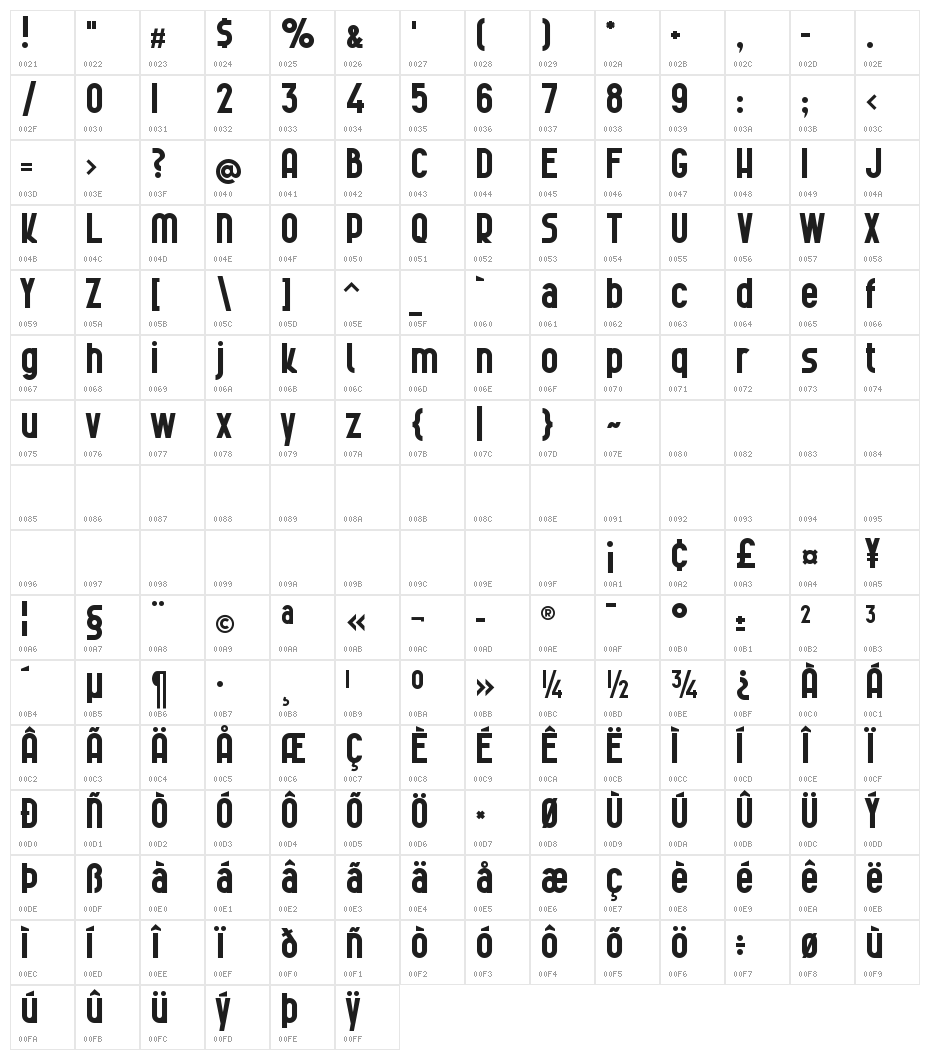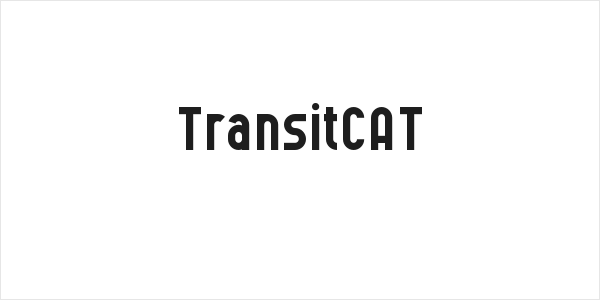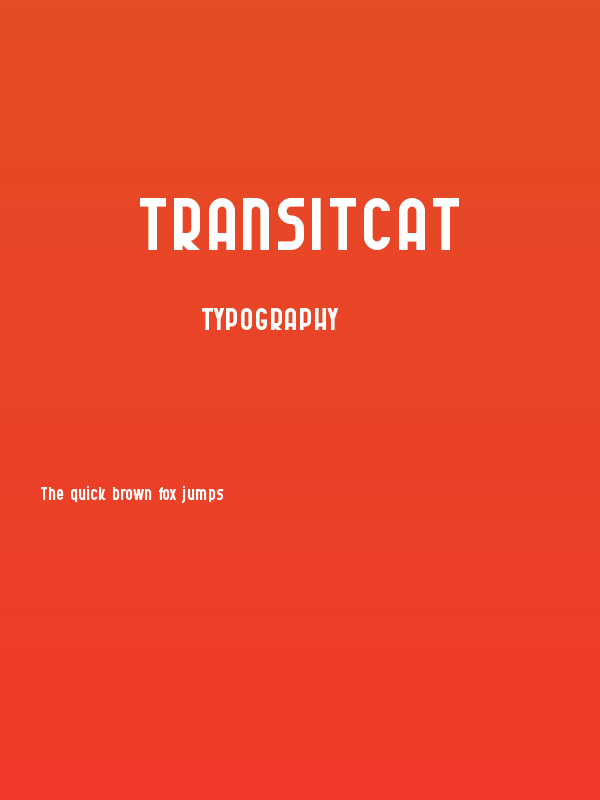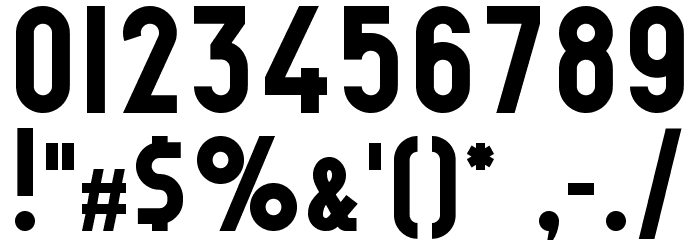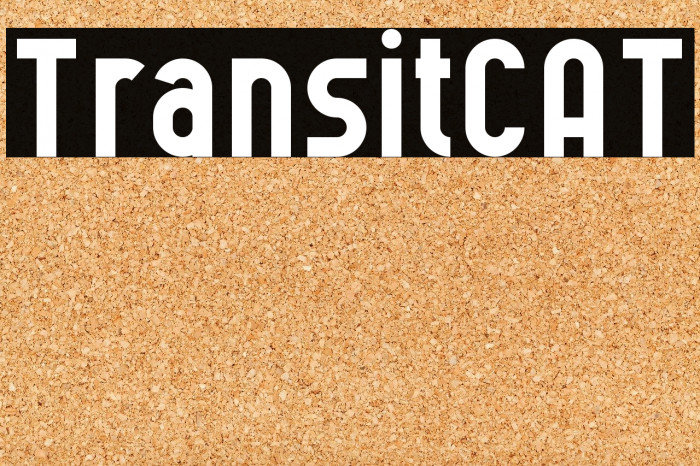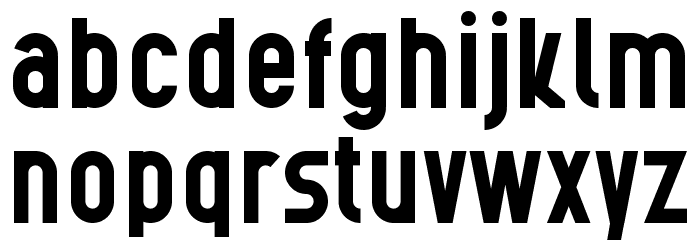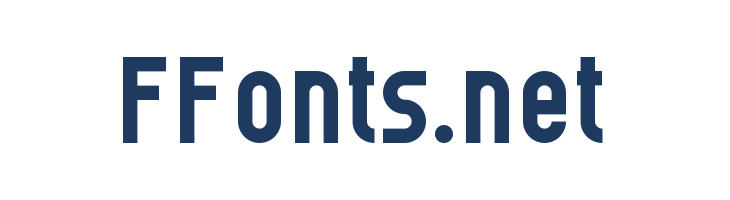
TransitCAT Font
TransitCAT Description
This font features a bold and modern sans-serif style with a geometric structure. The characters are uniform in width, providing a clean and organized appearance. The uppercase letters are tall and assertive, while the lowercase letters maintain a consistent height, enhancing readability. The numerals are clear and distinct, making them suitable for various applications. Special characters are well-defined, adding versatility to the font. The overall design is straightforward and functional, ideal for conveying information clearly and effectively.
| Use Case | Headlines, Logos, Signage |
| Proposed Projects | Ideal for transportation signage, branding, posters, and digital interfaces where clarity and modernity are essential. |